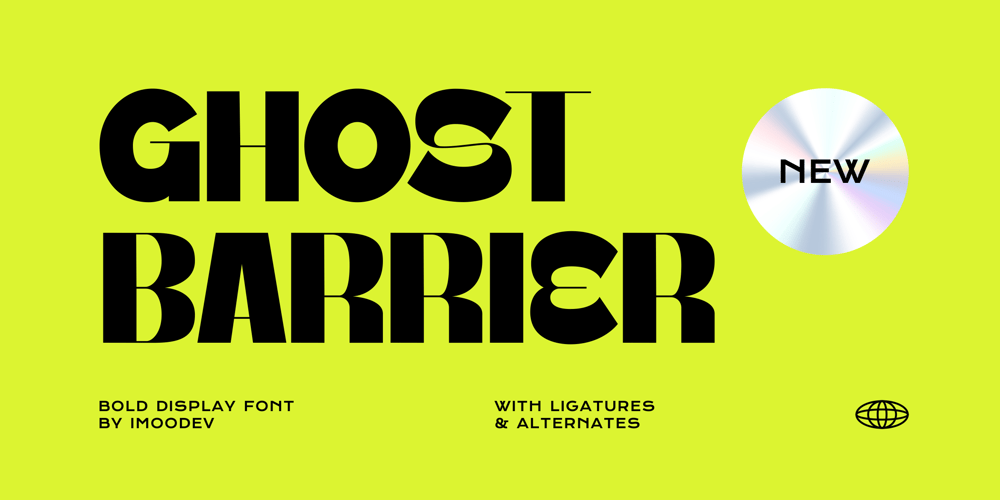
Ghost Barrier Font Family was designed by Aulia Savira Putri and published by Imoodev. Ghost Barrier contains 1 styles and family package options. Ghost Barrier is sans serif display fonts with visual elegance, smooth curves, and beautiful ligatures clear, making your work look true and attractive.